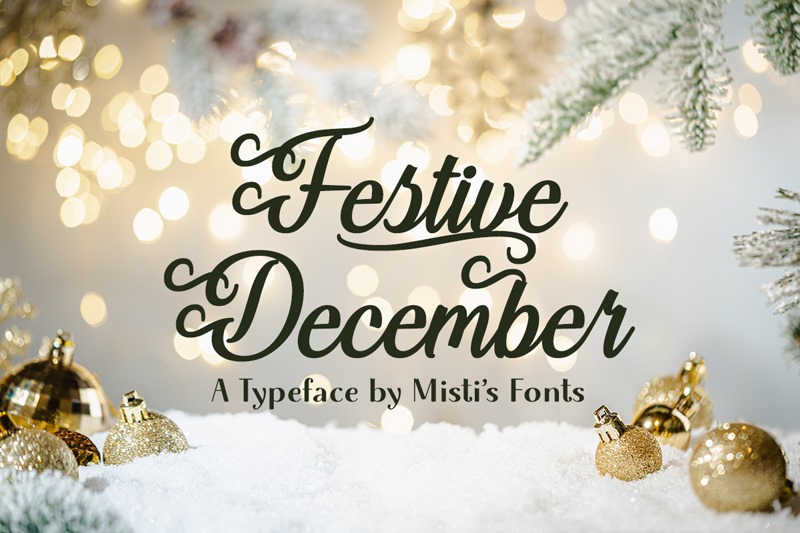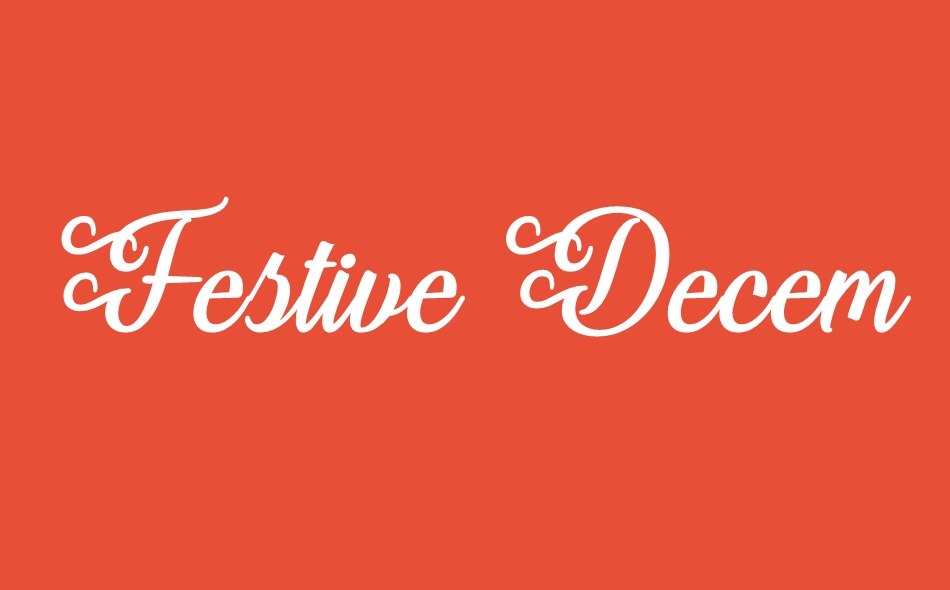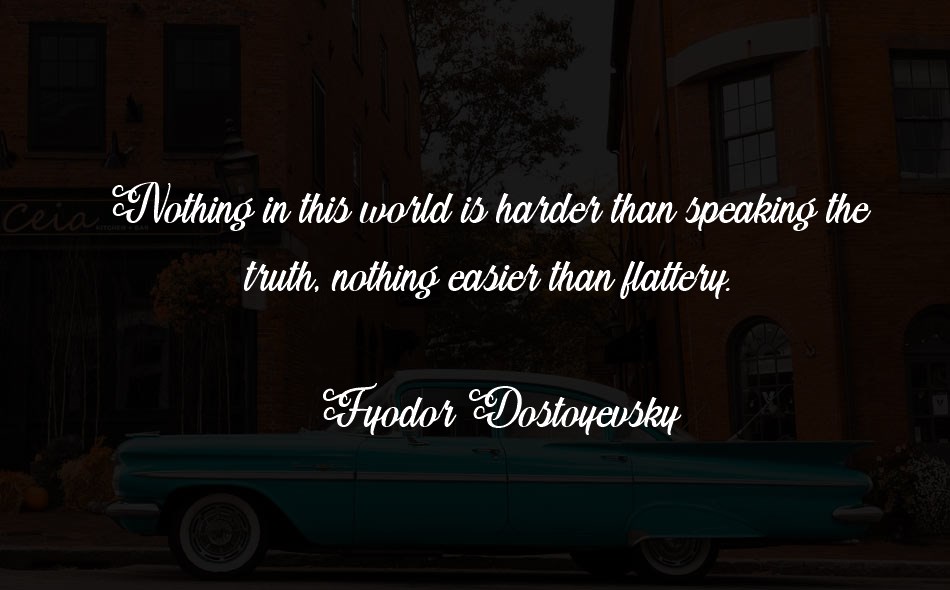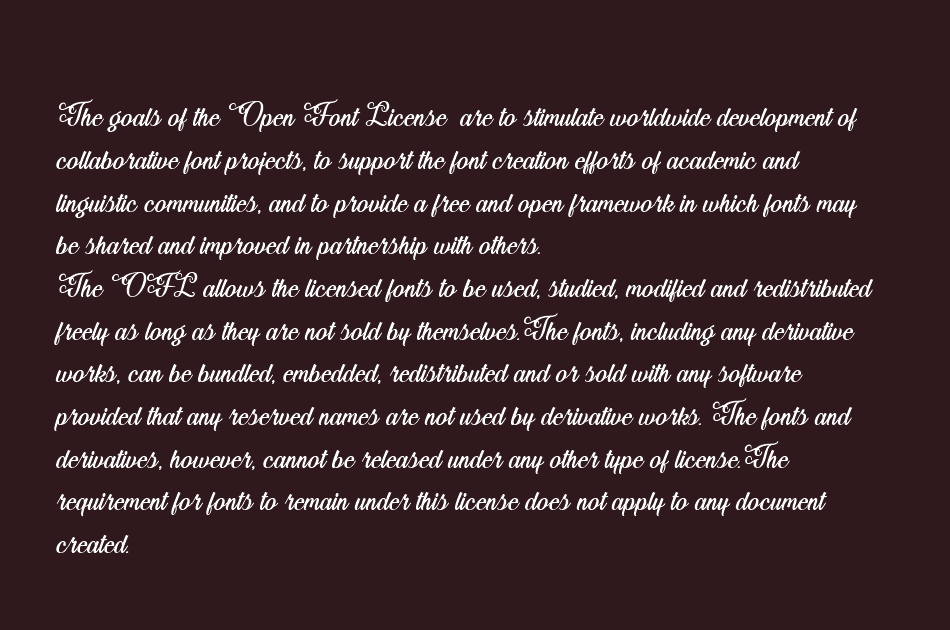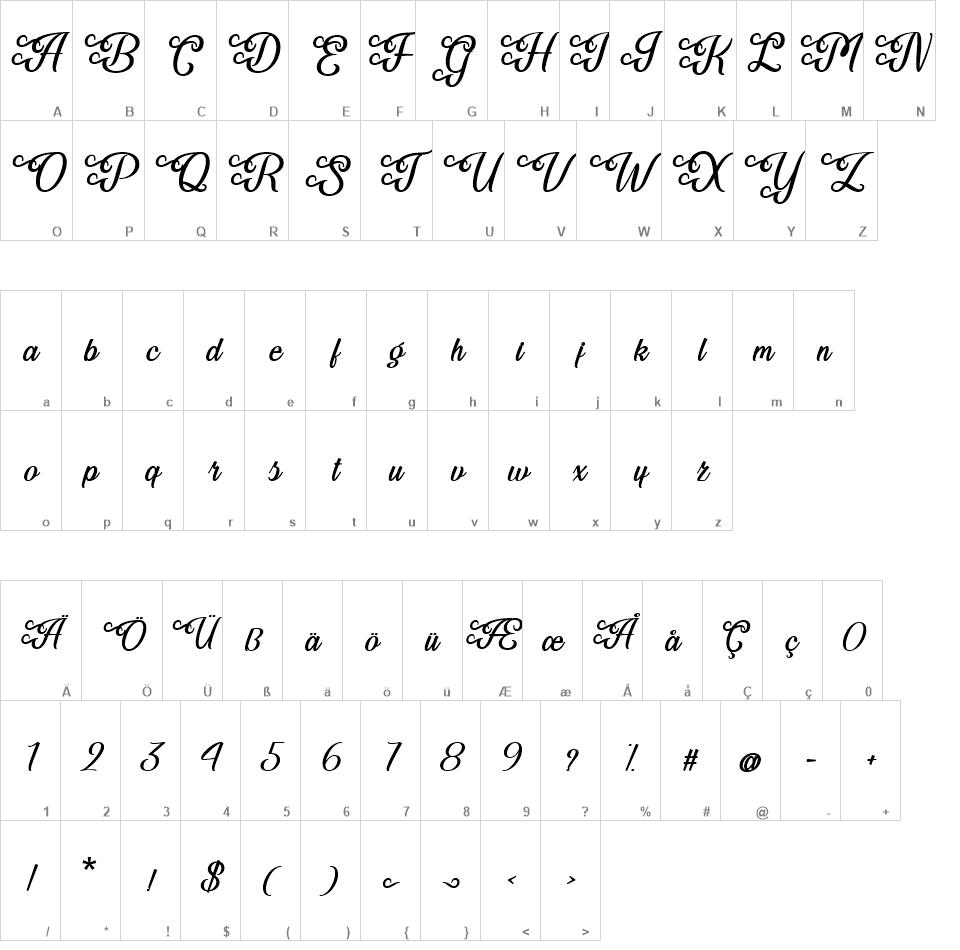
Festive December font
Introducing Festive December, the perfect typeface for all your holiday design needs! This elegant, calligraphy styled font is a true showstopper, with its bold and decorative flourishes that add a touch of fancy to any project.